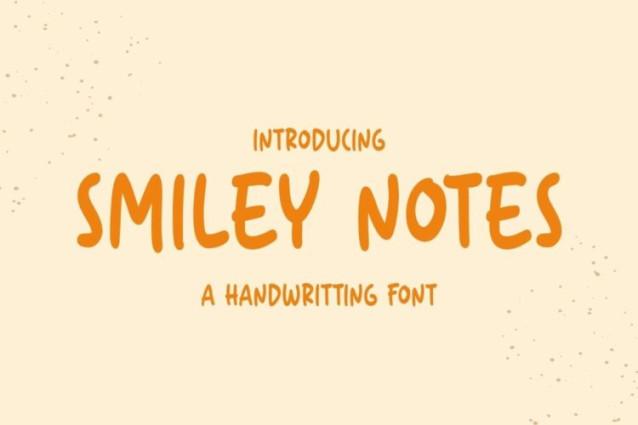
Smiley Notes Font
Smiley Notes Font is a simple and friendly handwritten font. Its natural and unique style makes it incredibly fitting to a large pool of designs. The only limit is your imagination!